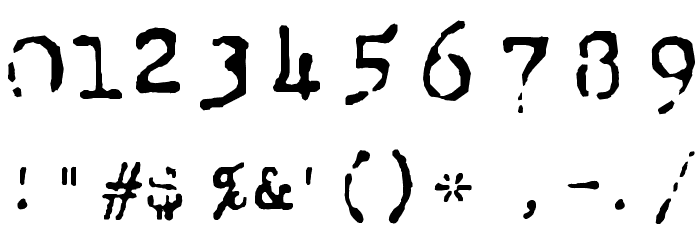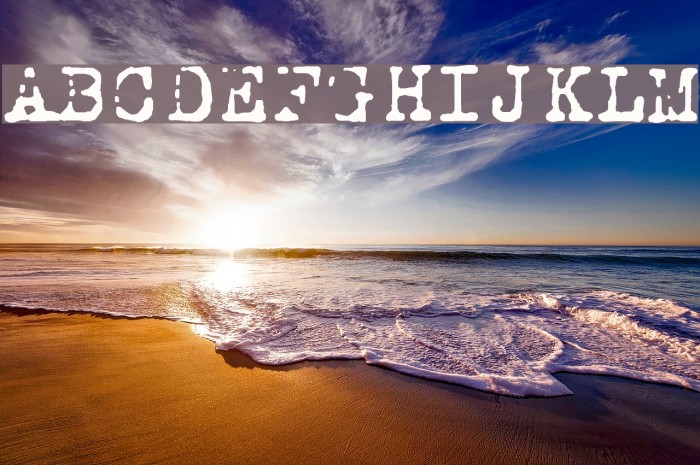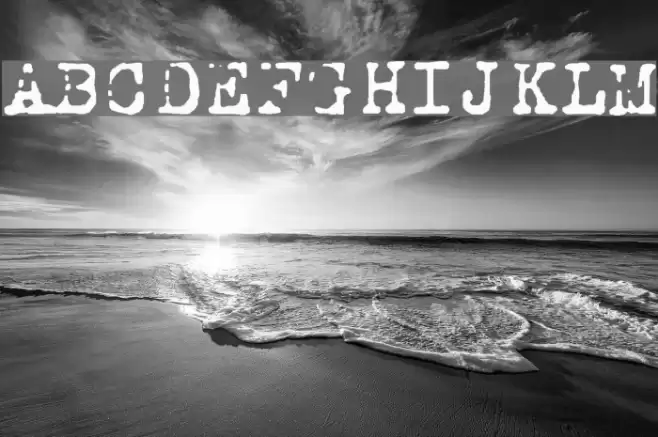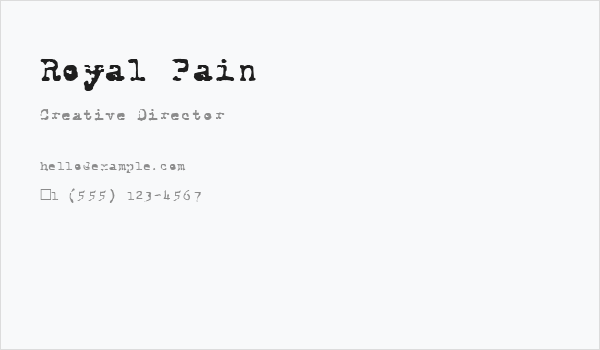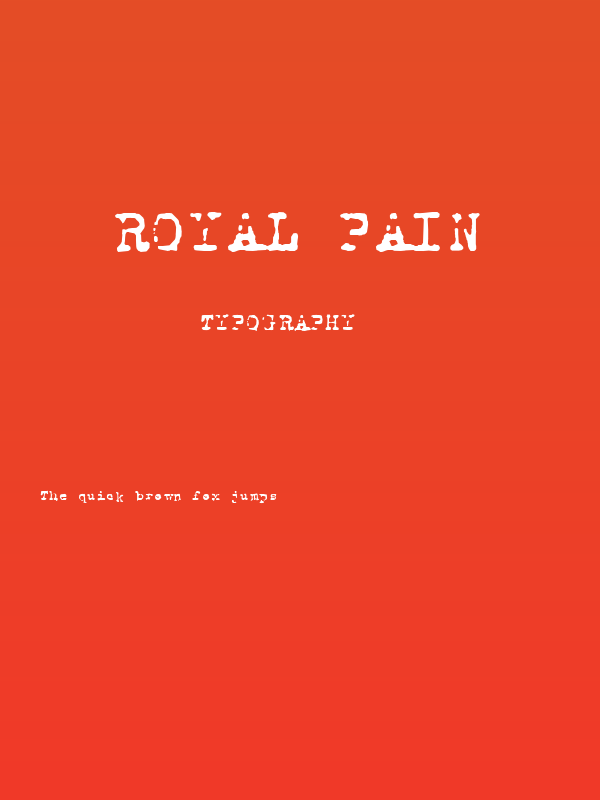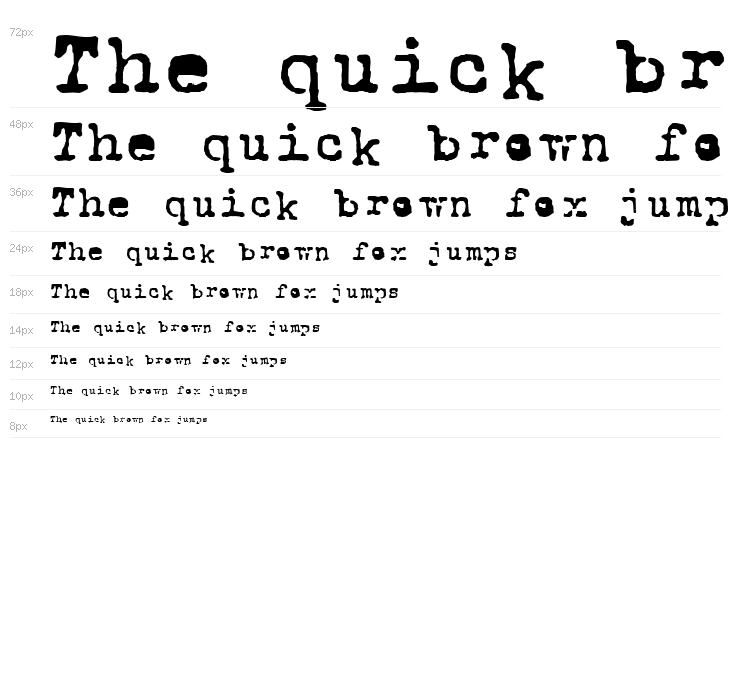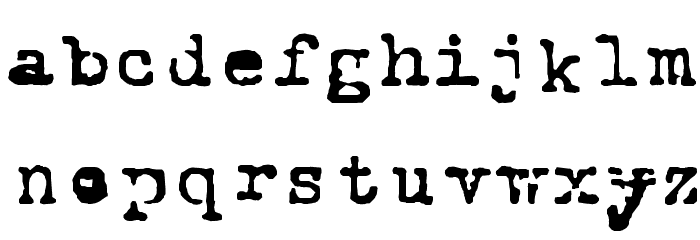
Royal Pain Font
Royal Pain Description
This font exhibits a distressed, grunge style with a vintage aesthetic. The characters appear as if they have been stamped or printed with a worn-out typewriter, giving them a unique, textured appearance. The uppercase and lowercase letters maintain a consistent style, with irregular edges and varying stroke widths that add to the overall rugged look. The numerals and special characters follow the same design, ensuring a cohesive appearance across all glyphs. This font is ideal for projects that require a touch of nostalgia or an edgy, rebellious vibe.
| Overall Style | Vintage, Grunge |
| Proposed Projects | Ideal for album covers, posters, vintage-themed designs, and branding that requires a rugged, edgy look. |